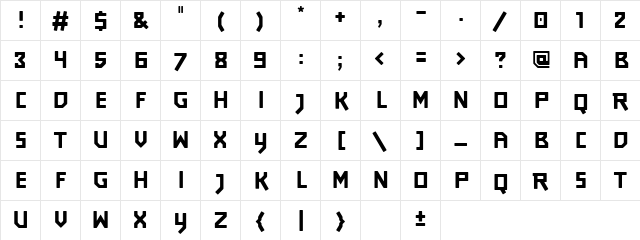
JourneyPS3 Regular
Design Context for JourneyPS3
JourneyPS3 is a composed and adaptable typeface that performs quietly and consistently across a wide range of design contexts.
Pro Tip: Use JourneyPS3 in both headline and body roles to test its range before committing to a single application.